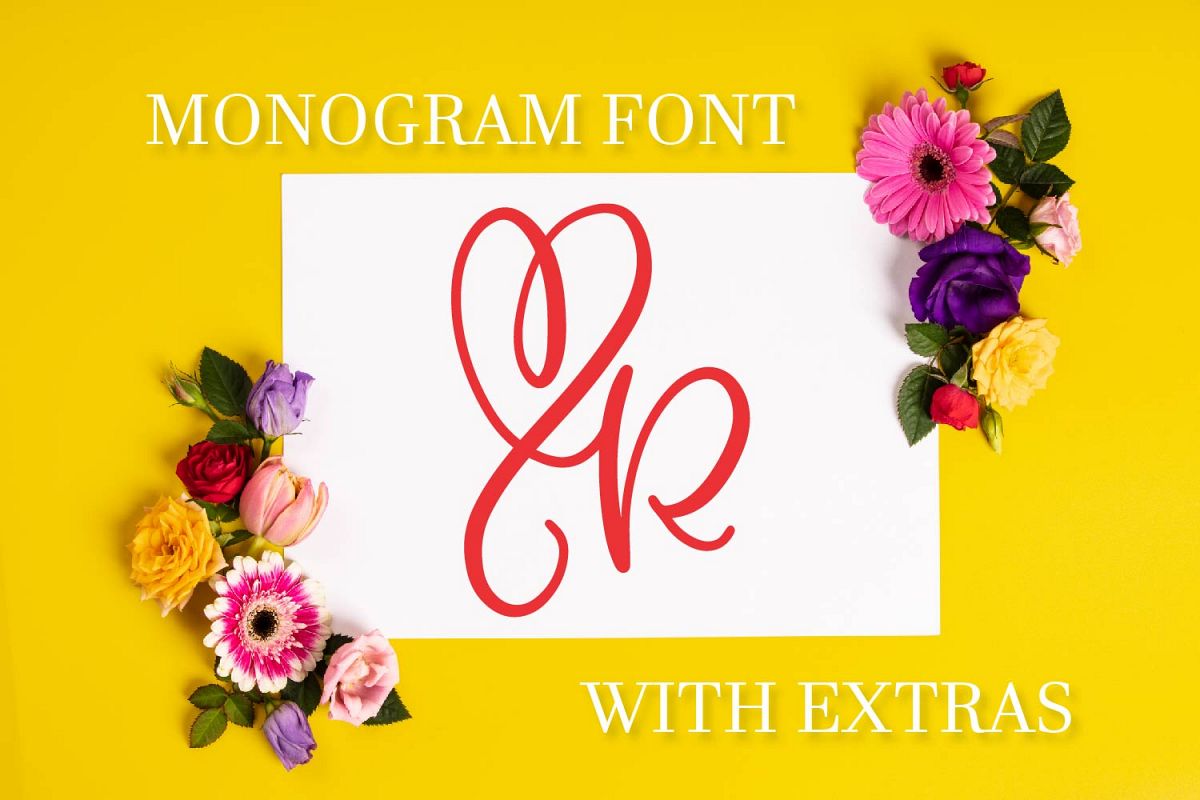
CLN - Monohearts - A Monogram Heart Font with Extra Doodles
Alternative (no heart) characters on lower case
Doodles on top row of keyboard, essentially. 1-10 & (`-=~!@#$%^&*_+)